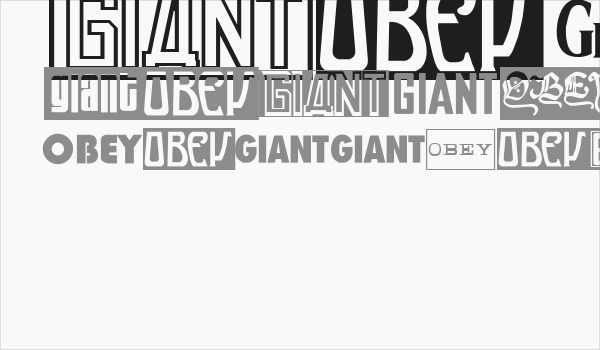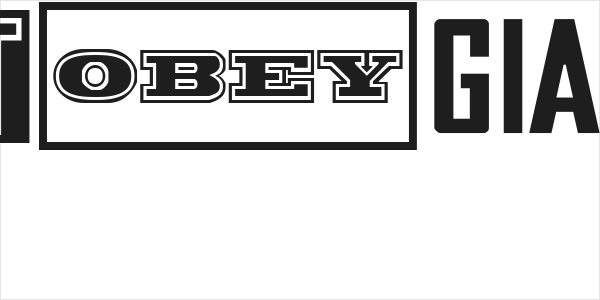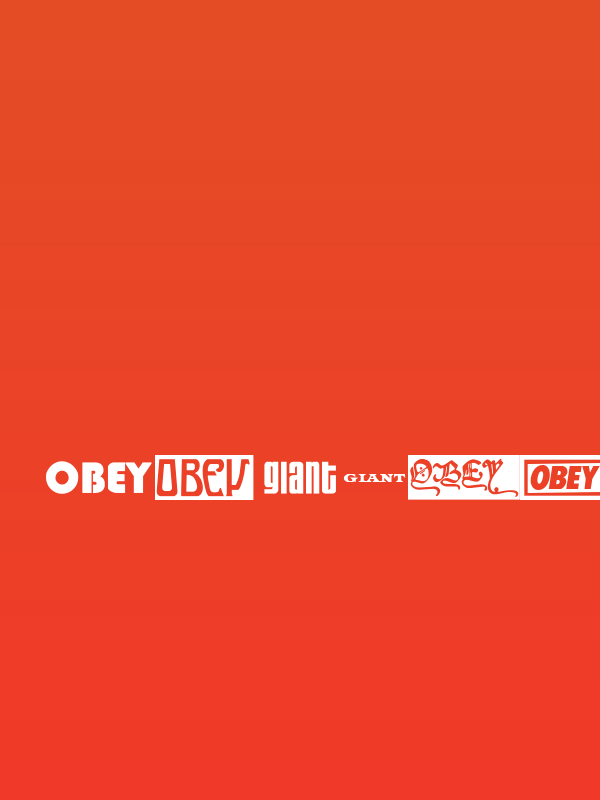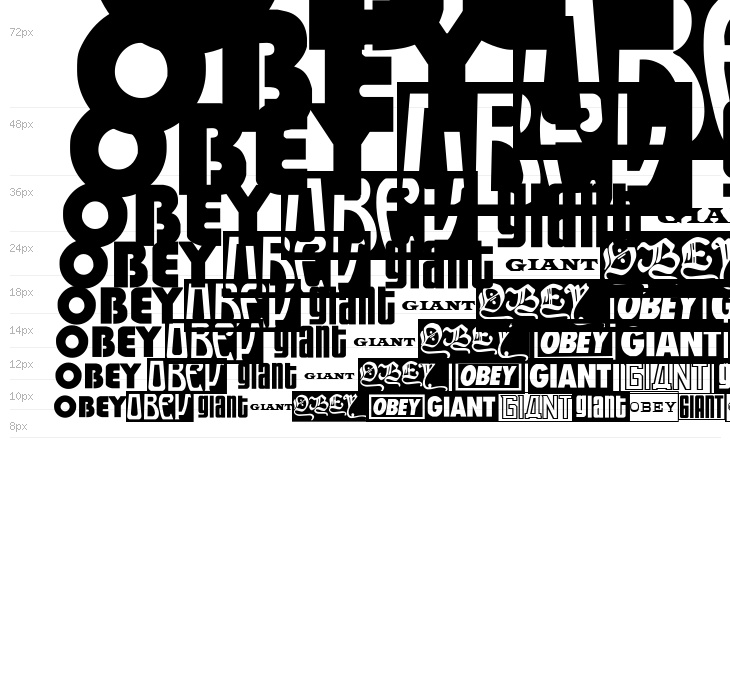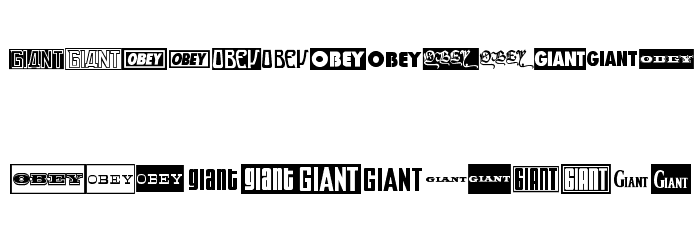
ObeyGiantPoster Font
ObeyGiantPoster Description
This collection of fonts showcases a variety of bold and impactful styles, each with a unique flair. The designs range from blocky and geometric to more fluid and artistic, capturing attention with their distinct visual appeal. Some fonts feature thick, solid strokes, while others incorporate intricate patterns and textures. The diverse styles are unified by their strong presence, making them ideal for making a statement. The fonts are versatile, suitable for both modern and vintage themes, and can be used to convey a sense of authority, creativity, or rebellion.
| Overall Style | Modern, Vintage, Decorative |
| Proposed Projects | Ideal for posters, branding, album covers, and street art-inspired designs. |